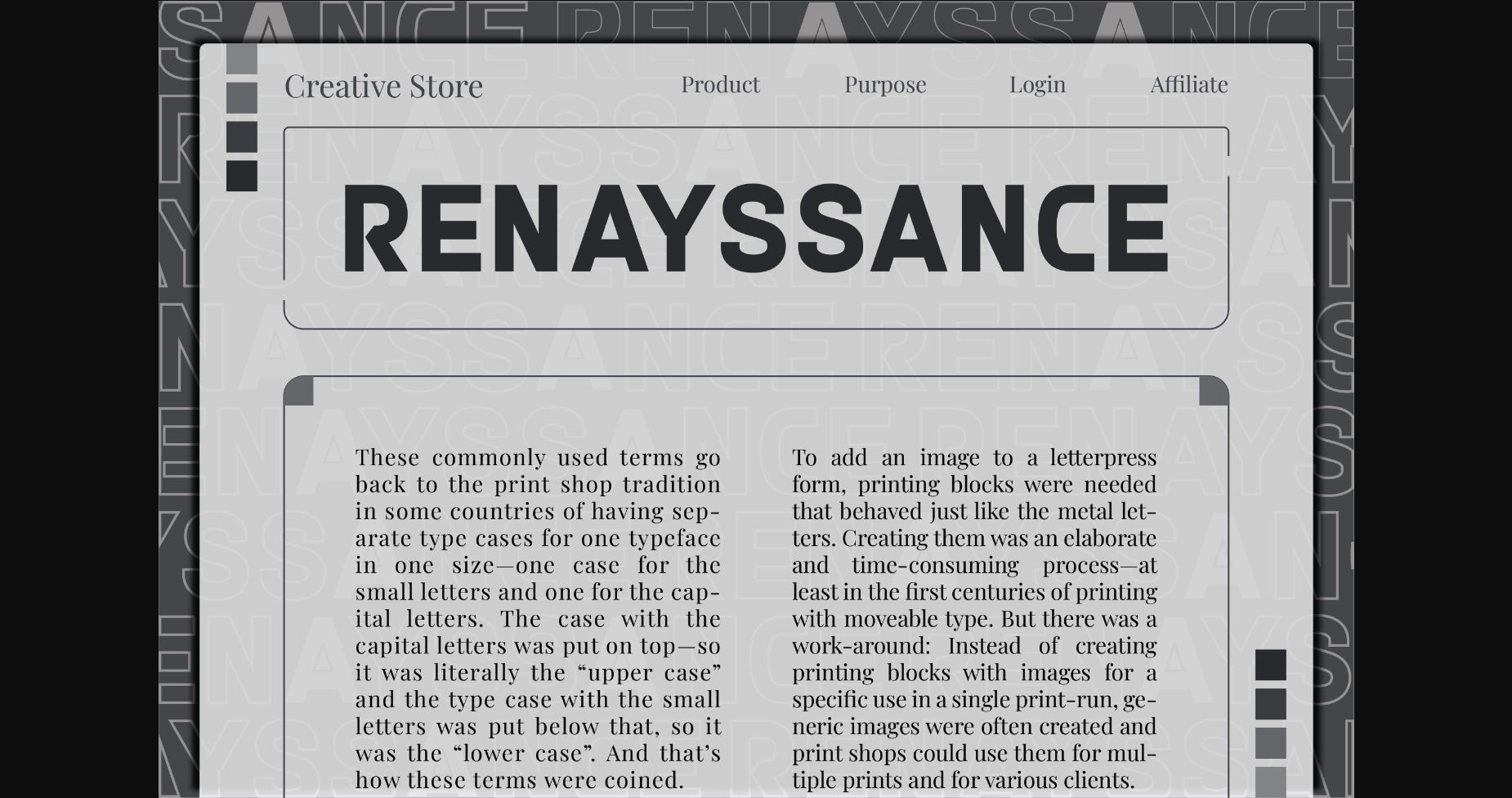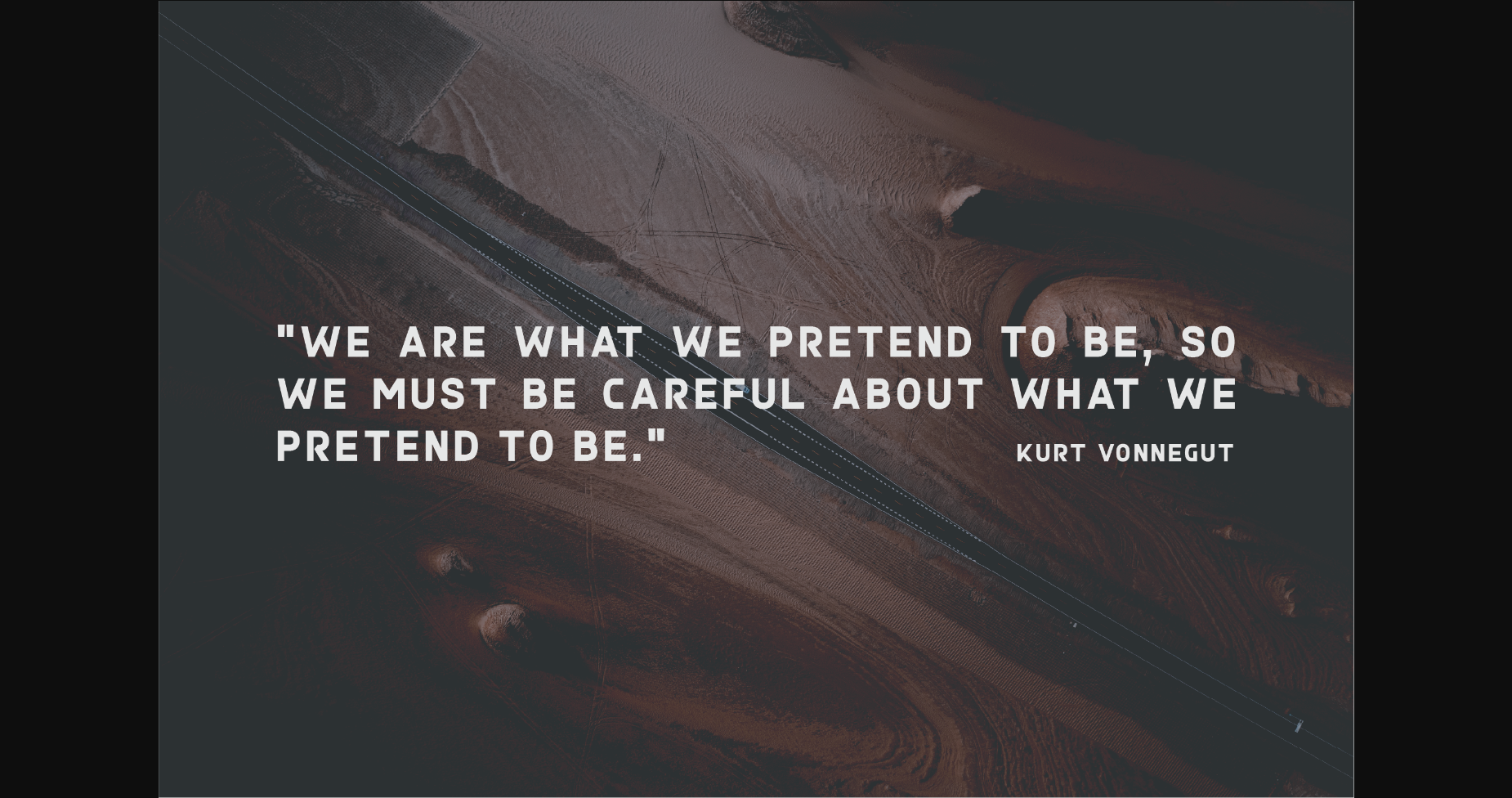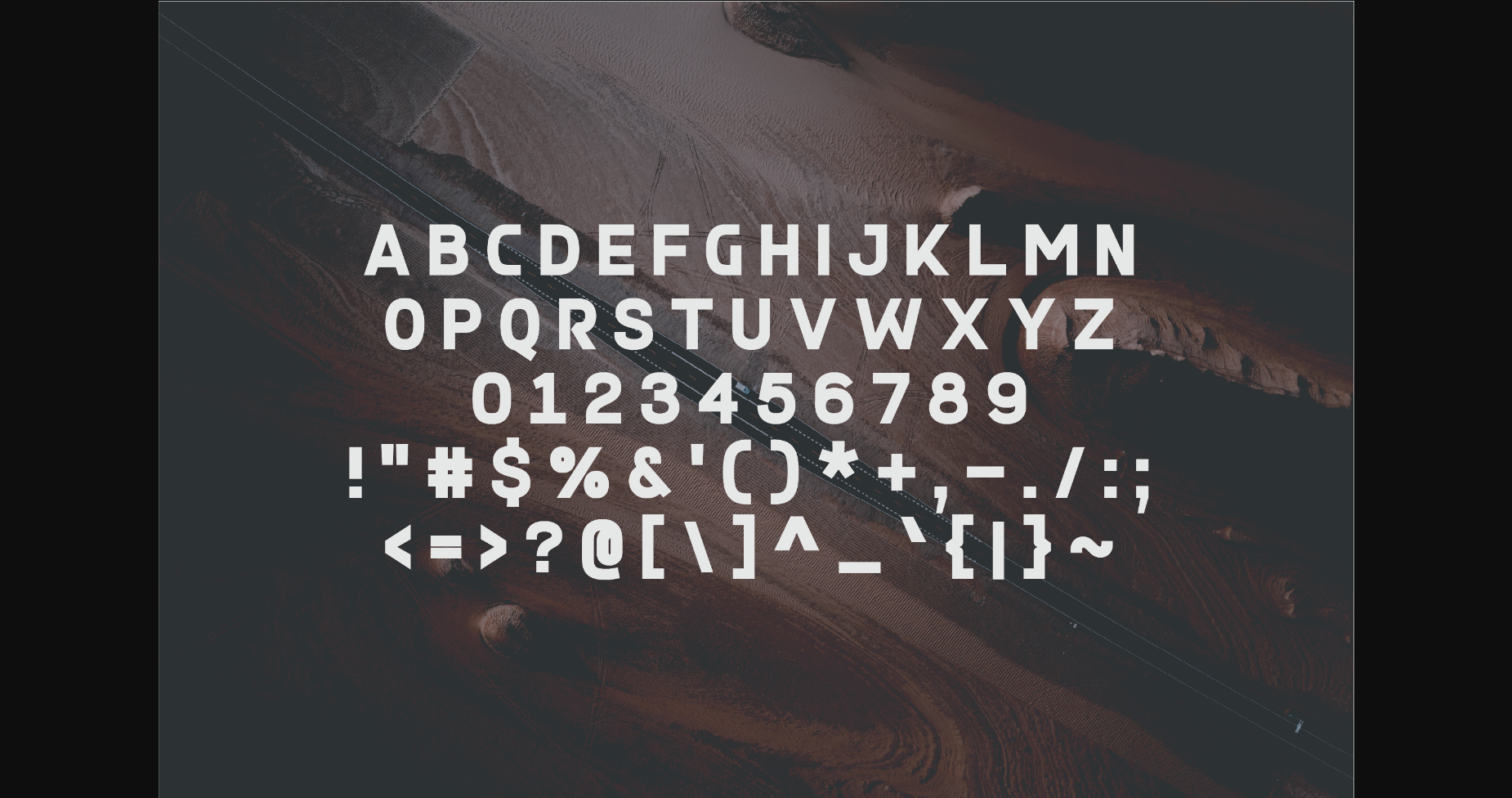
Renayssance Font
About Renayssance Font
Renayssance is a versatile, modern, and classy sans serif font perfect for logos, weddings, invitations, quotes, advertisements, print, magazines, and more. Add it to your most creative ideas, and notice how it makes them come alive!